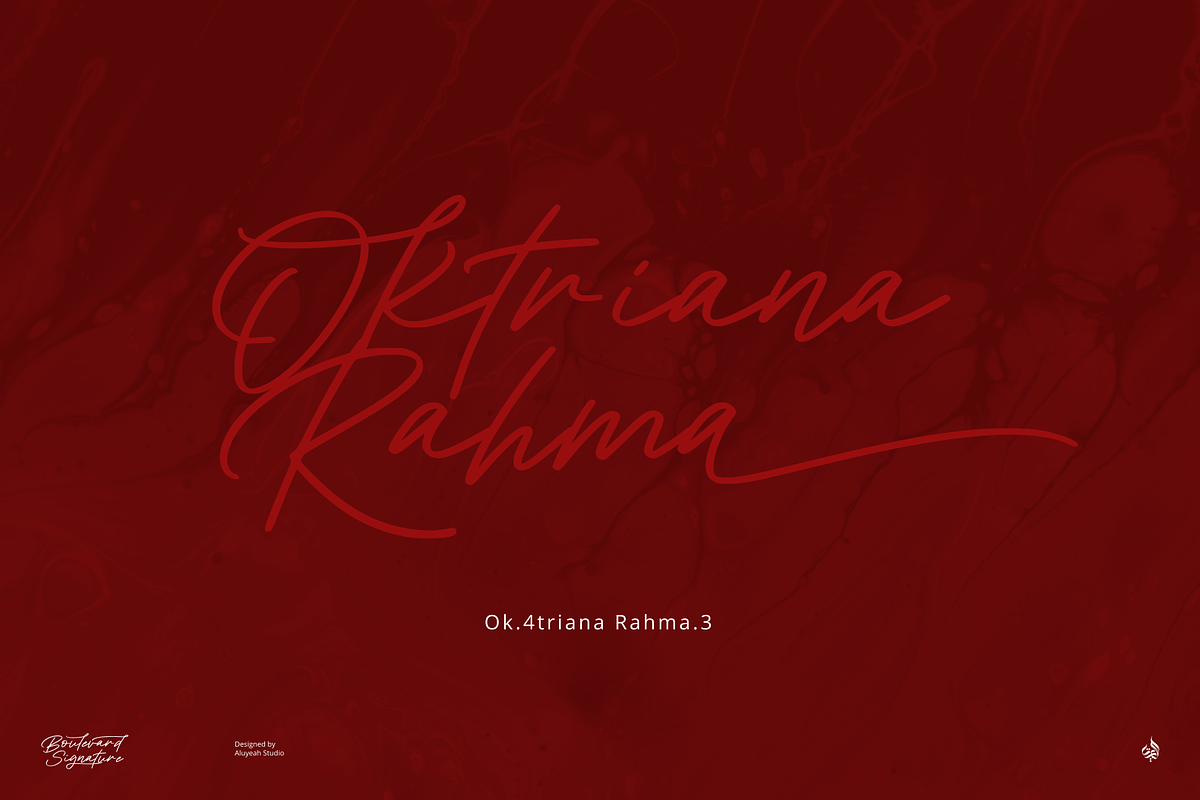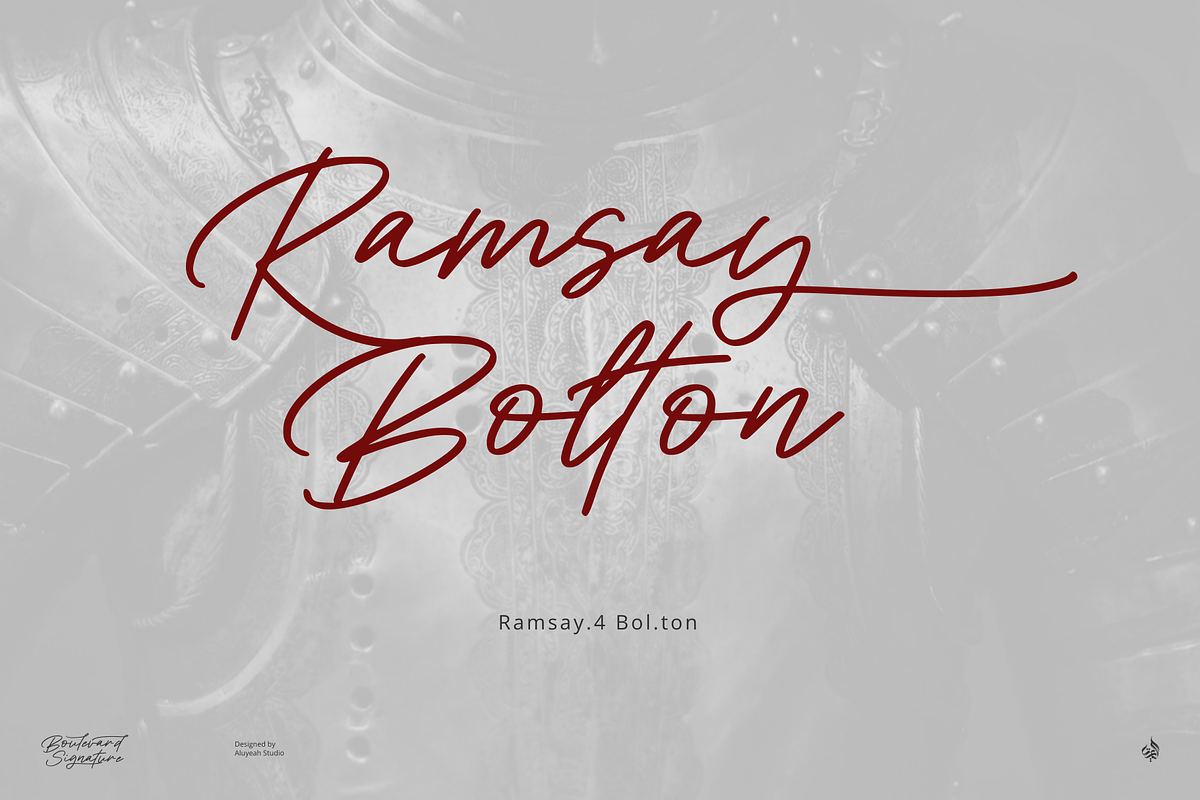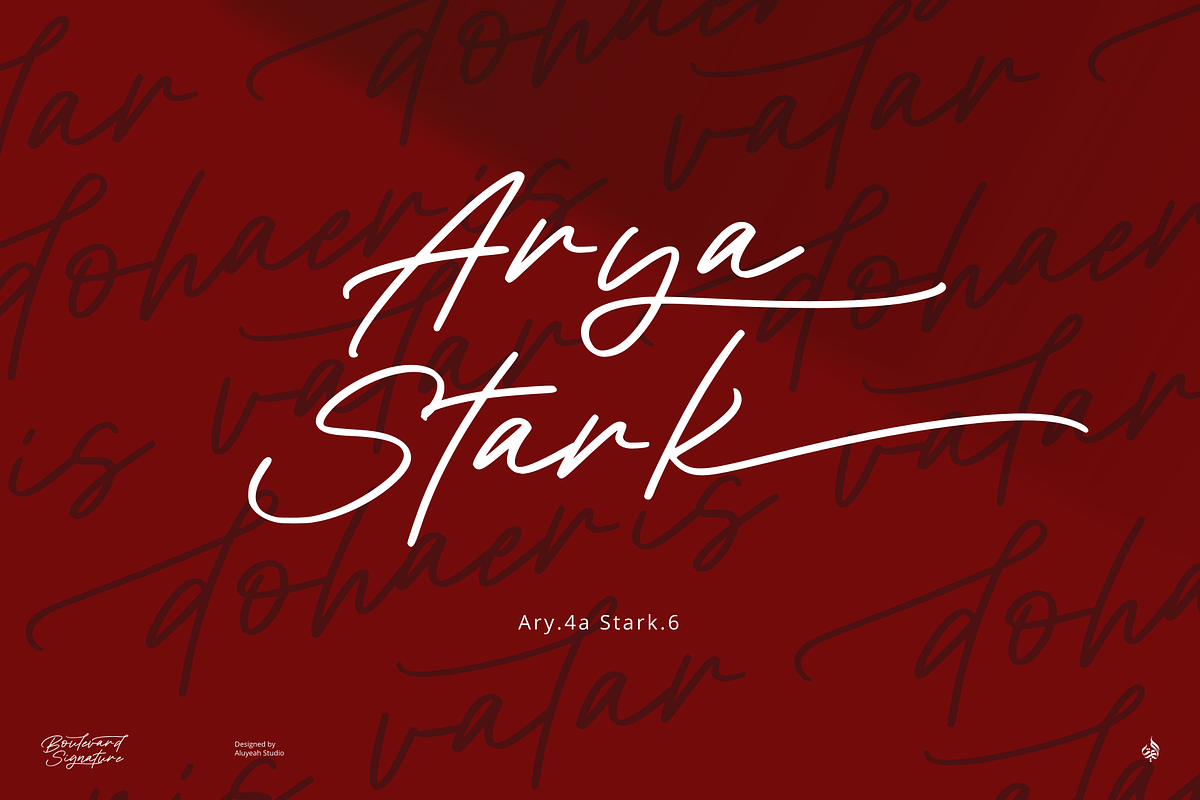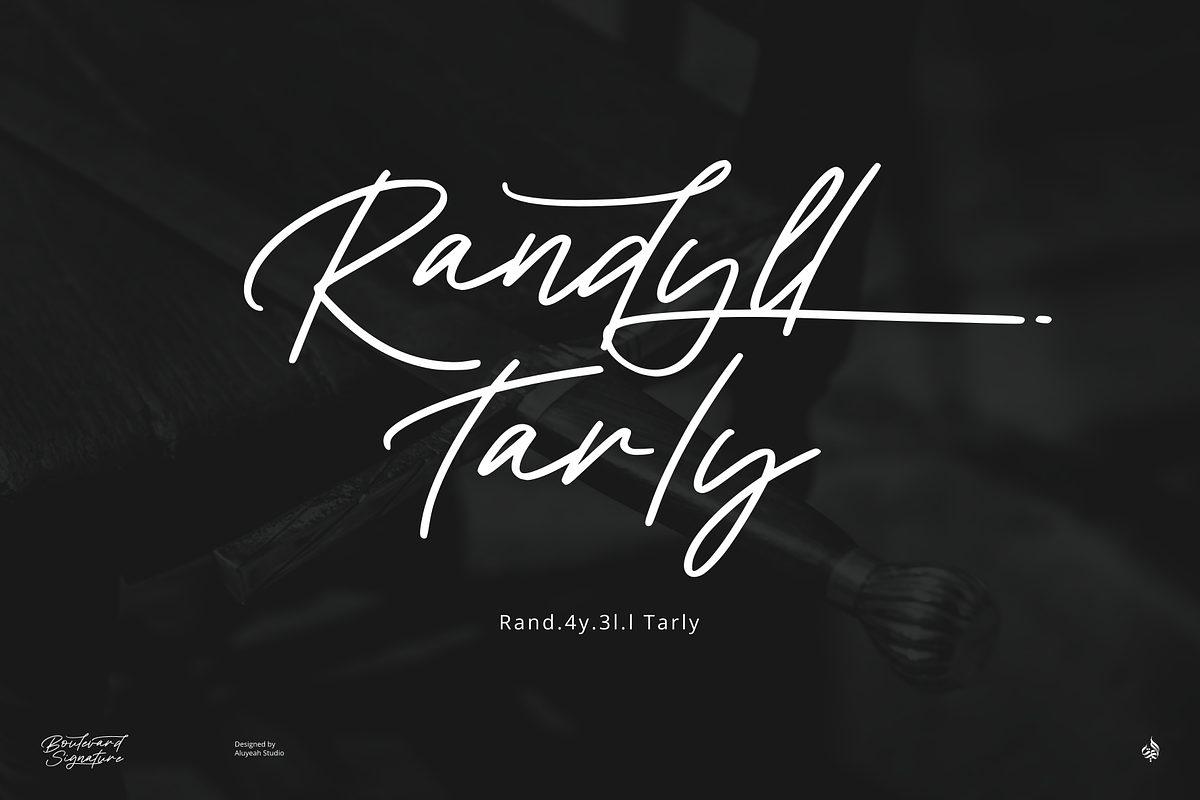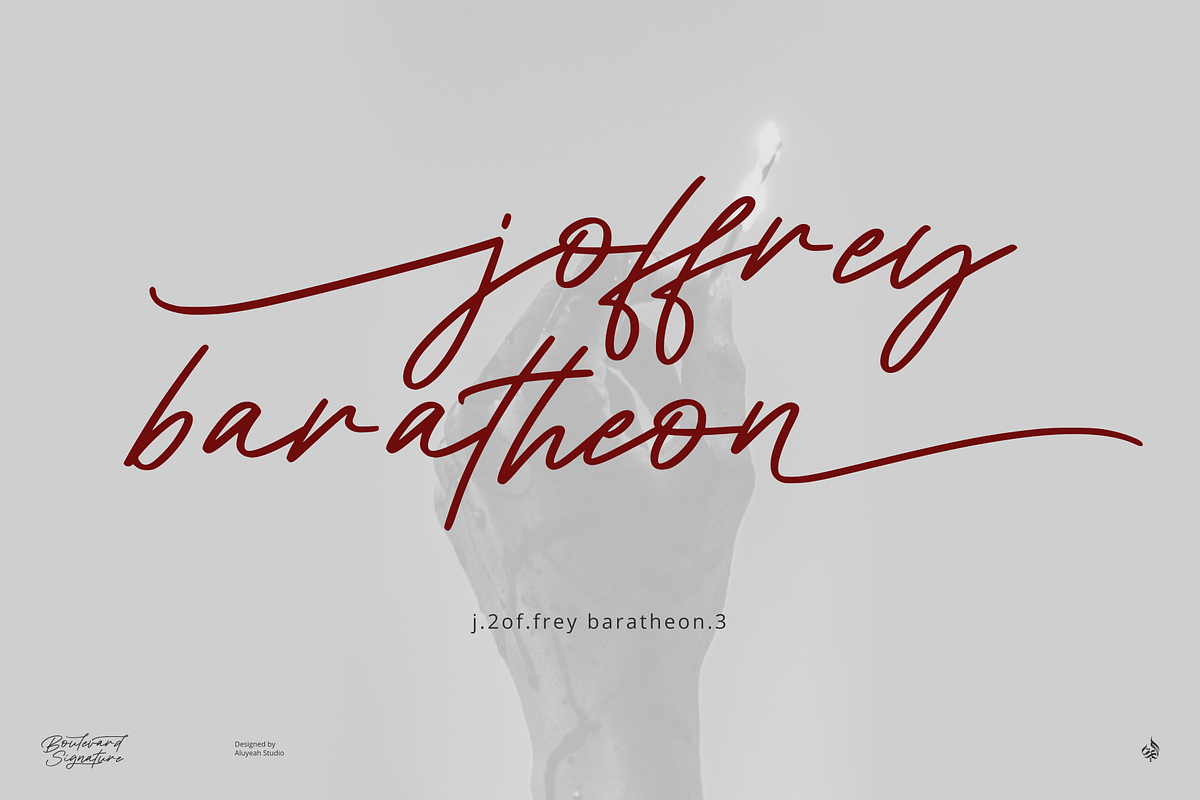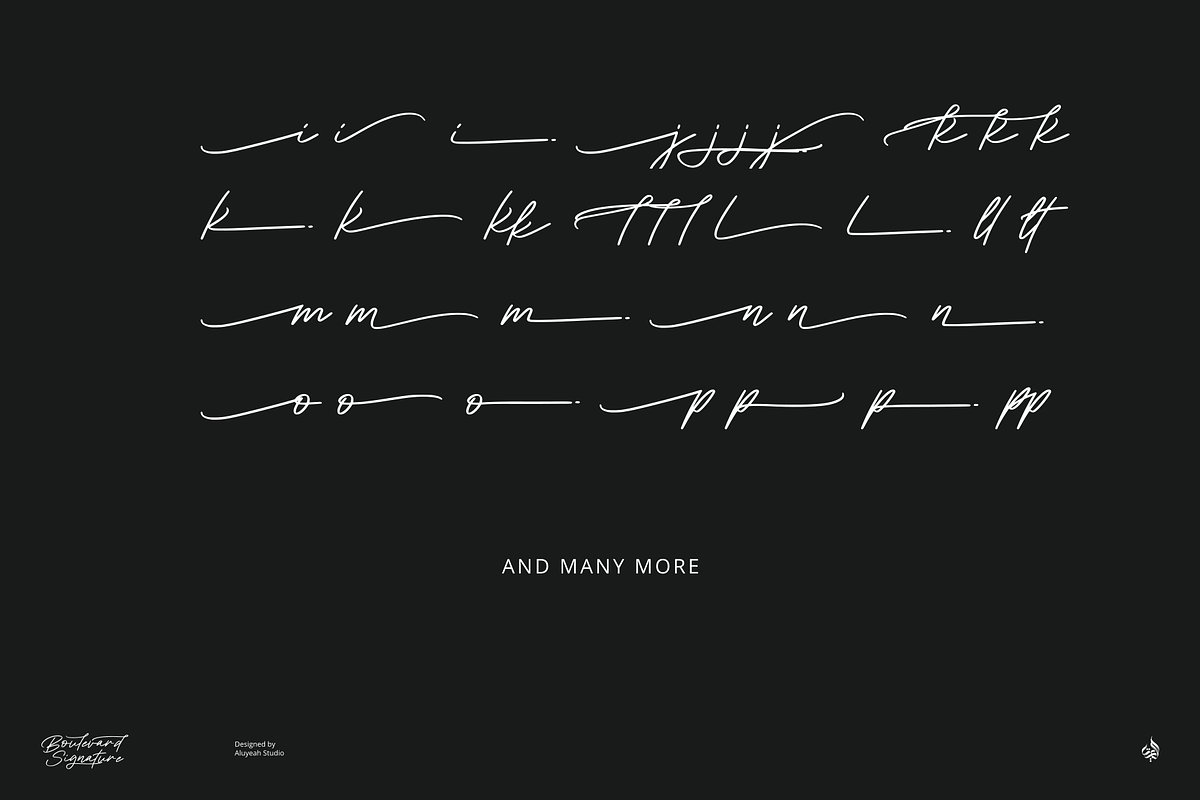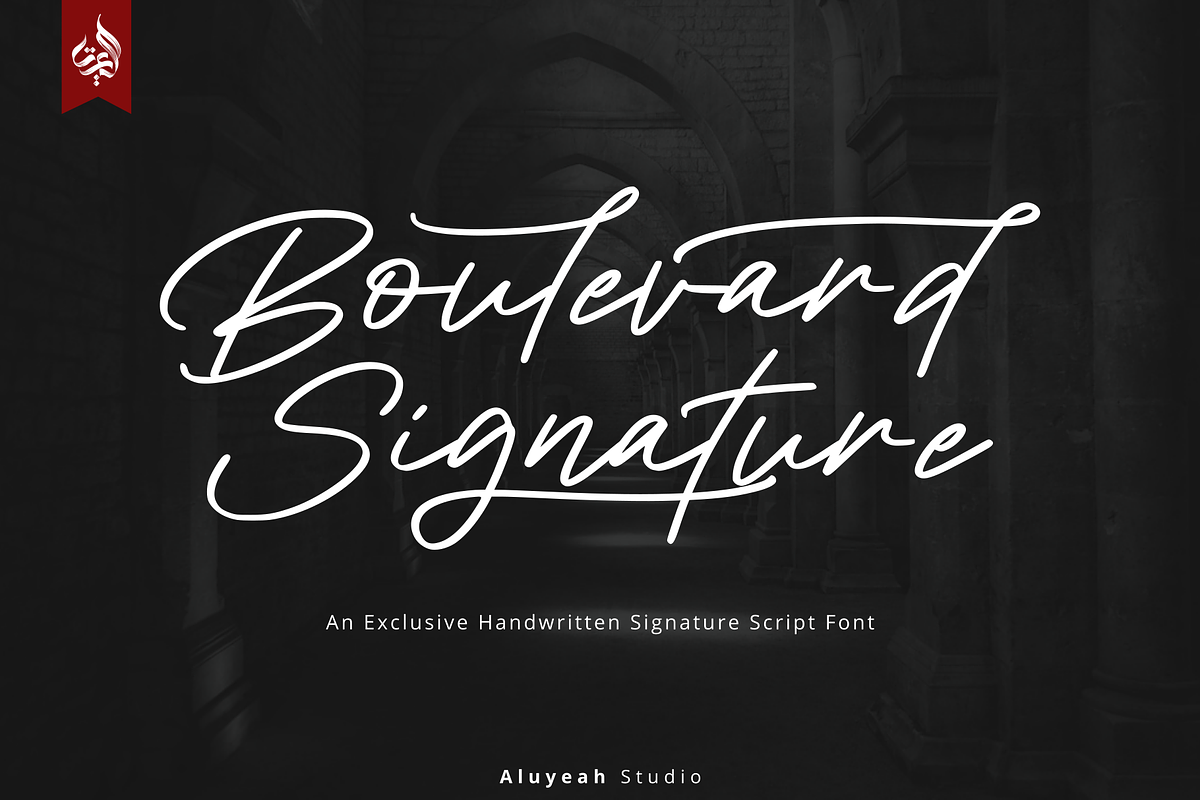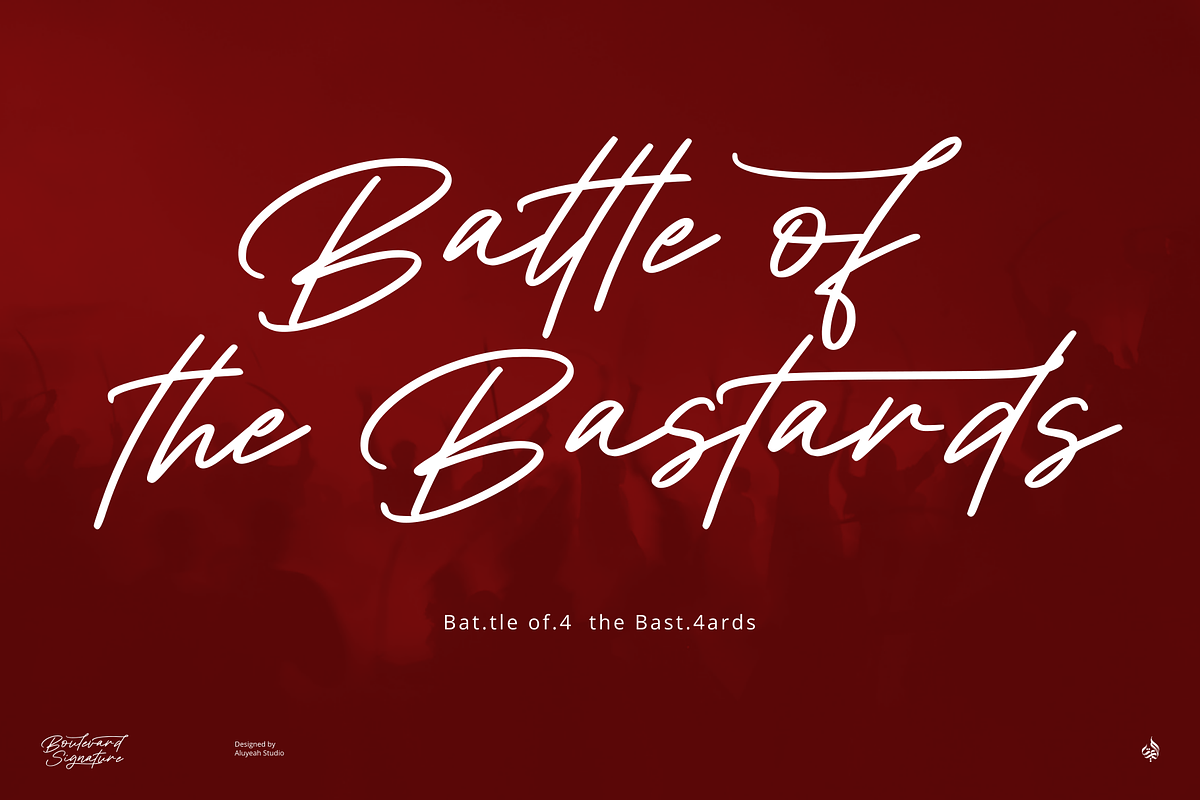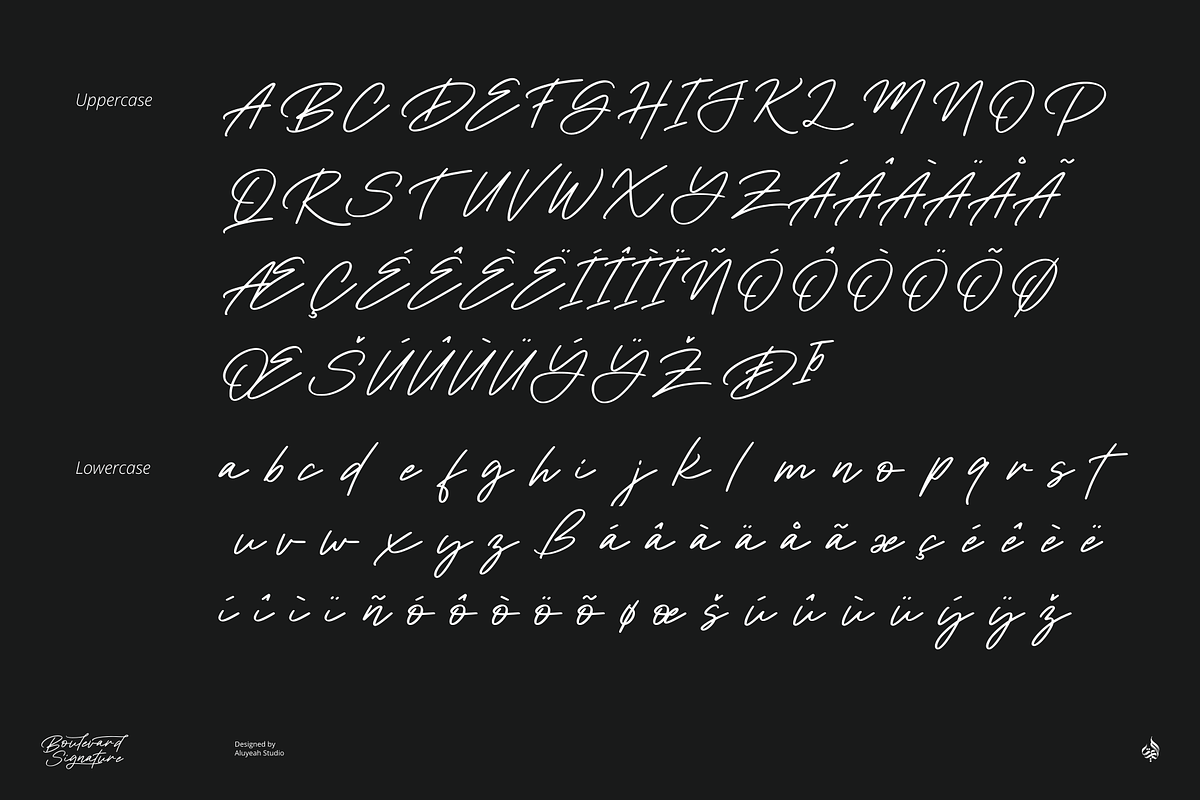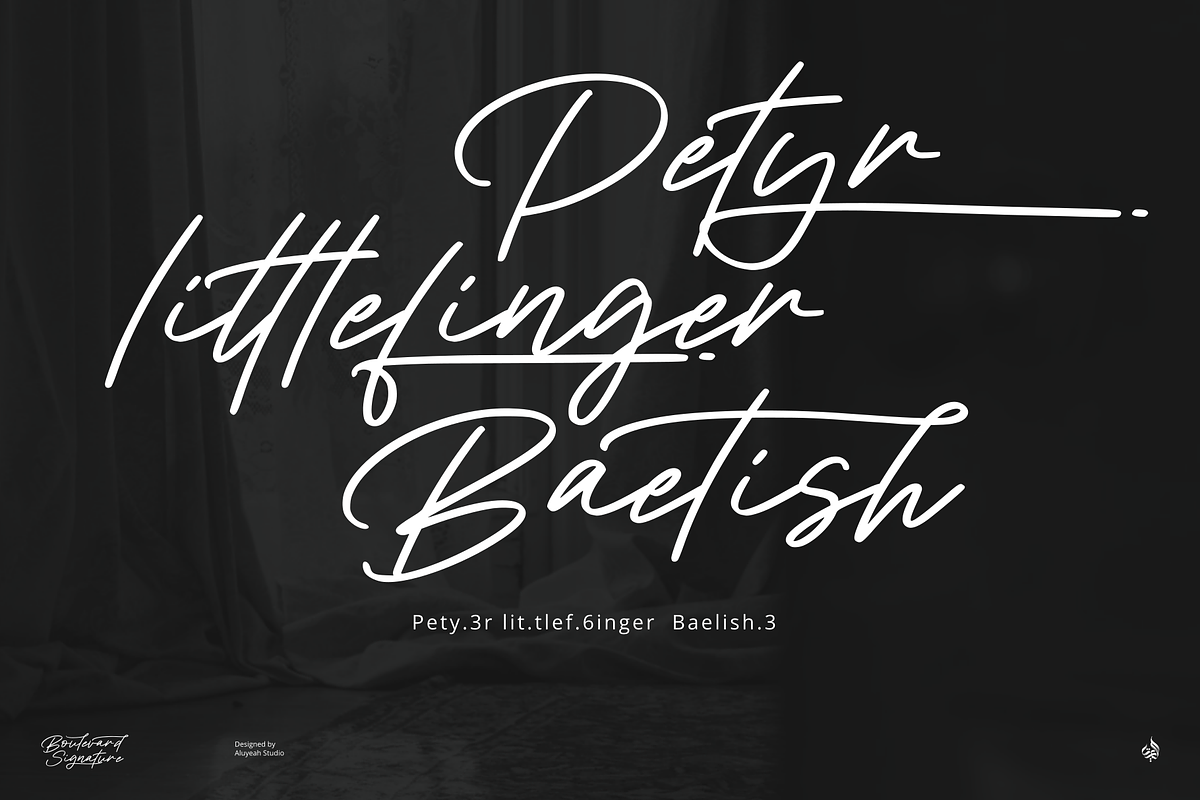
Boulevard Signature
Boulevard Signature, an exclusive handwritten signature font. Through Boulevard Signature we want to provide an exclusive look and feel as it is attached to leaders and policy makers. Make your designs have the determination and passion that everyone dreams of. Gives a full touch like from a professional, executive, master, jedi to king. Boulevard Signature will inspire to build his own empire.
It can be applied to many areas of design. Coming with 100+ stunning and super easy to use alternates and ligatures. Very suitable for your wedding invitation, packaging, apps, magazine, headline, website, ads and all type of design project you have.
- OpenType support
- Multilingual support (15 languages)
- Super Easy to Use alternates - You can easily call alternates using special combination like a.2 k.3 b.4 t.h c.c etc.
To get results like the preview just type Boul.4evard.3 Sig.4nature